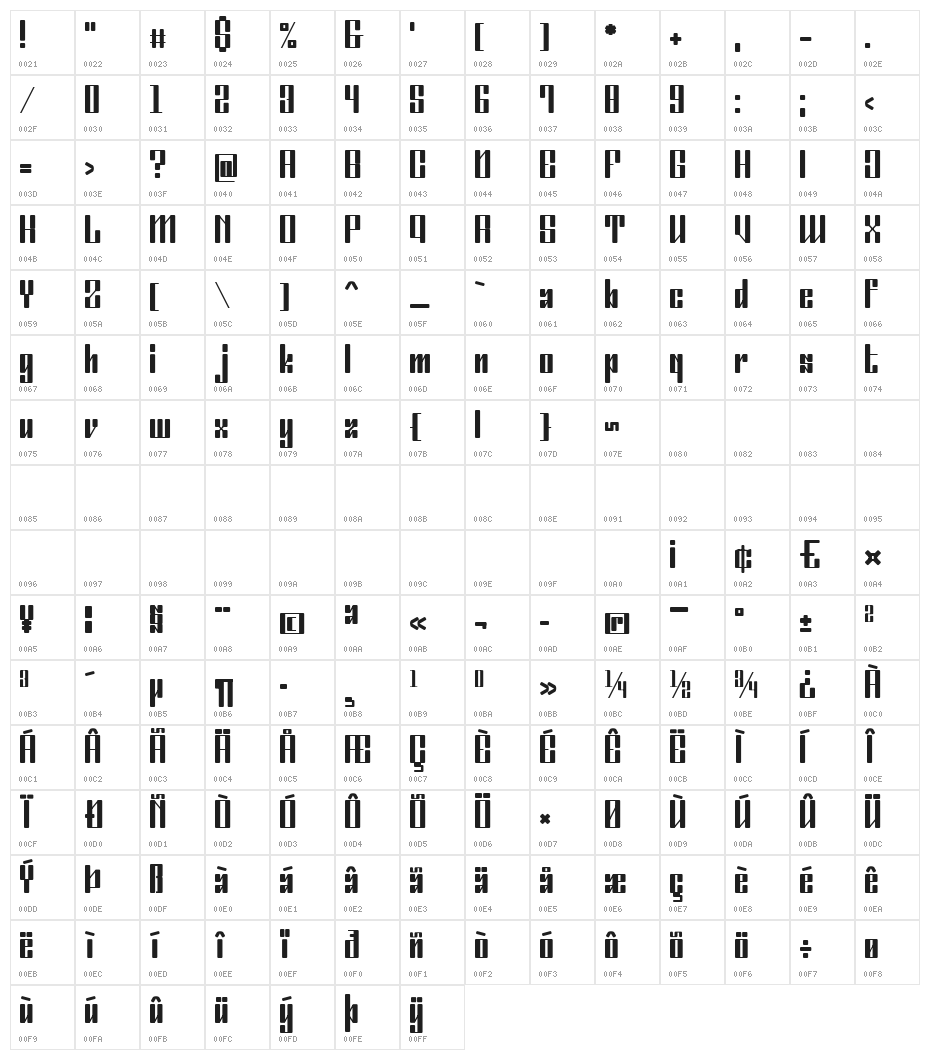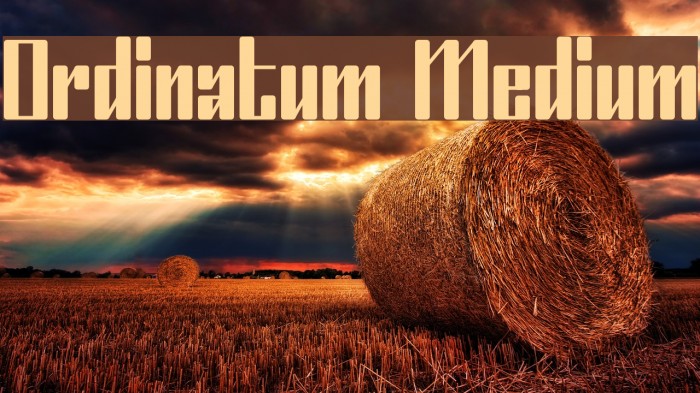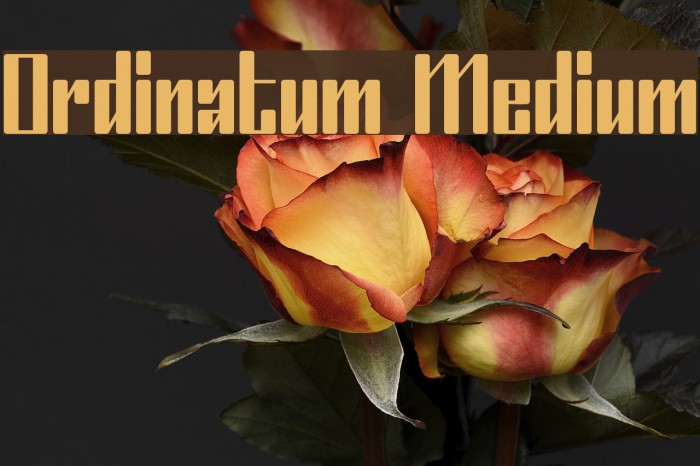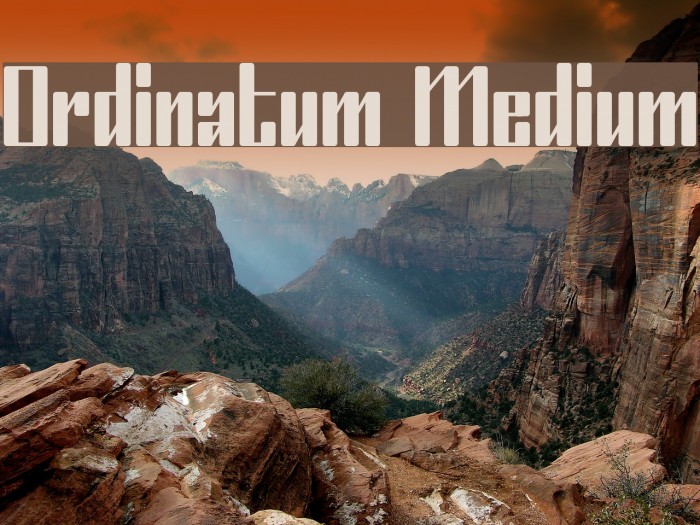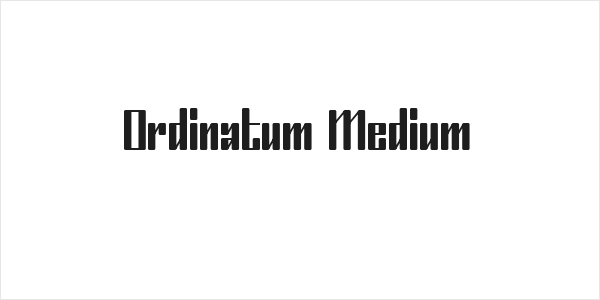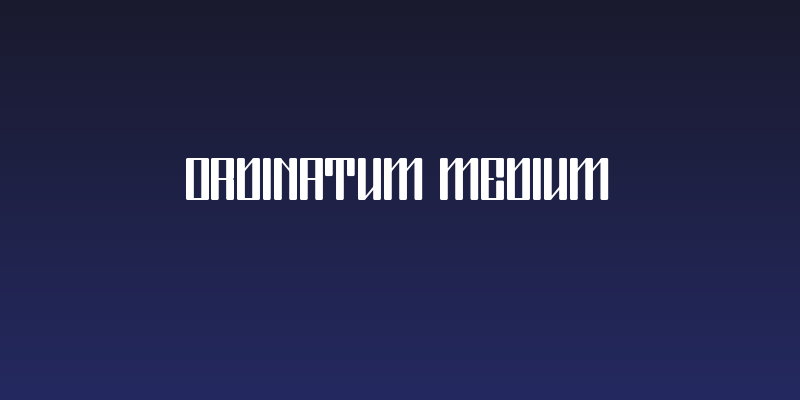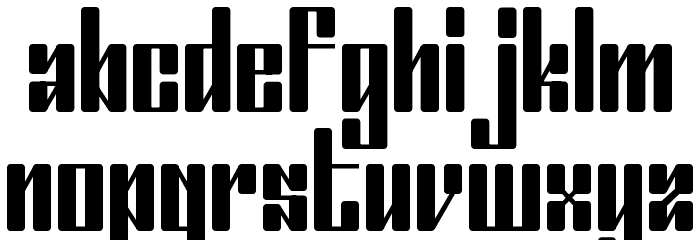
Ordinatum Medium Font
Ordinatum Medium Description
This font features a bold and structured design, characterized by its geometric and block-like appearance. The uppercase letters are uniform in height, with a strong vertical emphasis and minimal curves, creating a modern and industrial feel. The lowercase letters maintain the same geometric style, offering a cohesive look across all characters. Numbers and special characters follow the same design principles, ensuring consistency throughout. The font's distinct style makes it suitable for impactful and attention-grabbing designs.
| Proposed Projects | Ideal for branding, posters, headlines, and any project requiring a strong visual impact. |